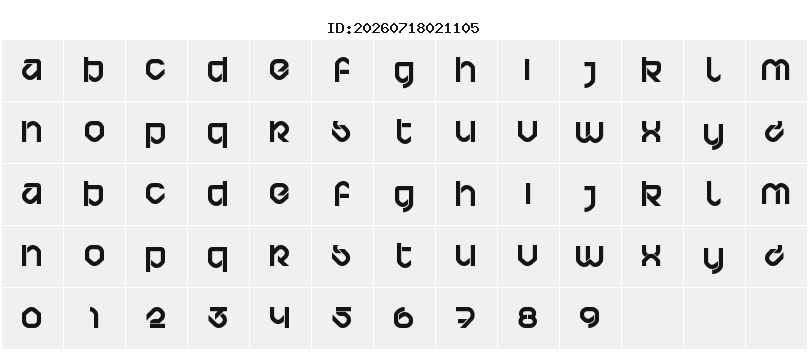
• Font Name: BD Bardust
• Full Font Name: BD Bardust
• Copyright: BD Bardust designed and enconded by Peter Korsman 2003 at buro destruct. copyright Peter Korsman, buro destruct berne capital. www.burodestruct.net. www.typedifferent.com
About BD Bardust.ttf
BD Bardust.ttf is a modern, elegant sans-serif font designed for ultimate readability and visual harmony. Perfect for branding, headlines, web design, and print materials.